VHS stands for Video Home System, a standard electronic product for analog video recording on tape cassettes by the Victor Company of Japan in the 1970s. VHS font is a font type that was called by the name of the technology.
Today will introduce you to the list of various retro VHS design style-looking fonts that you can use on your multiple projects. I hope you will find the best one for your requirements. I will also mention some glitch-type design font which is similar to VHS fonts.
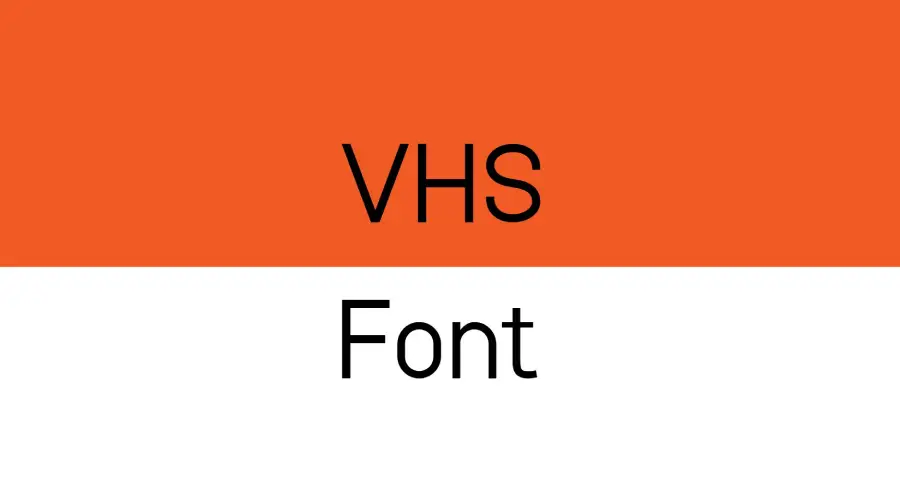
VCR OSD Mono
It’s an entirely free TrueType bitmap font both for commercial and personal use. Riciery Leal designed the VCR OSD Mono font. It’s another cool-looking font with upper and lowercase characters. This VHS font also features numerals, punctuation, and symbols. Just hit the below download button for downloading this font.
Err0r
This old VHS font was created in 2016 by KineticPlasma Fonts. The error comes with a Glitch style and is free for your personal and commercial projects.
Alte Haas Grotesk
Deepak Dogra designs the Heavitas font, which you can use for personal use. This font has another up-to-date version called Heavitas Neue. It’s a basic Sans Serif old-type font with bold and all-caps characters. It was published in 2015.
Heavitas
Another VHS font is Alte Haas Grotesk. It’s a basic Sans Serif type font designed by Yann le Coroller in 2007. It contains two font files. One is the regular version, and another is the bold version. Uppercase, and lowercase characters, numbers, and symbols are all provided.
Remarcle
Remarcle is a Fancy-Retro type free font designed by Tup Wanders in 2009. It’s free for both personal and commercial use. It contains three font files. Just hit the download button below to download the font.
Font Usage
VHS fonts are fonts that mimic the style of old video tapes and VCRs. They are often used to create a retro or nostalgic effect in graphic design, such as logos, posters, flyers, and more. VHS fonts usually have distorted, glitchy, or faded features that resemble the artifacts and noise of analog video signals.
They can also be used to create a contrast between the past and the present or to convey a message of nostalgia, or irony. VHS fonts are popular among designers who want to create a retro or vintage aesthetic, or who want to experiment with different styles and effects.
VHS Font Generator
VHS fonts are fonts that imitate the look of old video tapes and VCRs. They have a retro or nostalgic appeal in graphic design, and they can be used for various purposes, such as logos, posters, flyers, and more. VHS fonts have distorted, glitchy, or faded features that reflect the artifacts and noise of analog video signals. They can create a contrast between the past and the present, or convey a sense of nostalgia, irony, or humor. VHS fonts are popular among designers who want to create a retro or vintage aesthetic, or who want to experiment with different styles and effects.